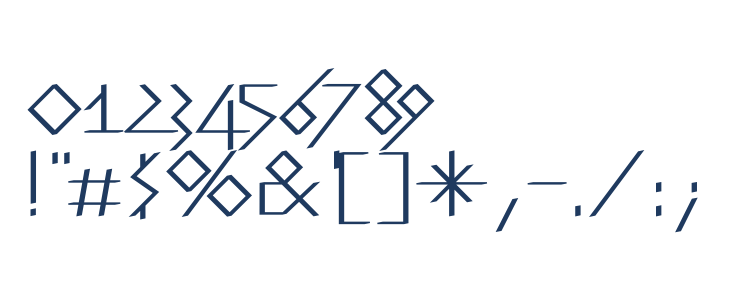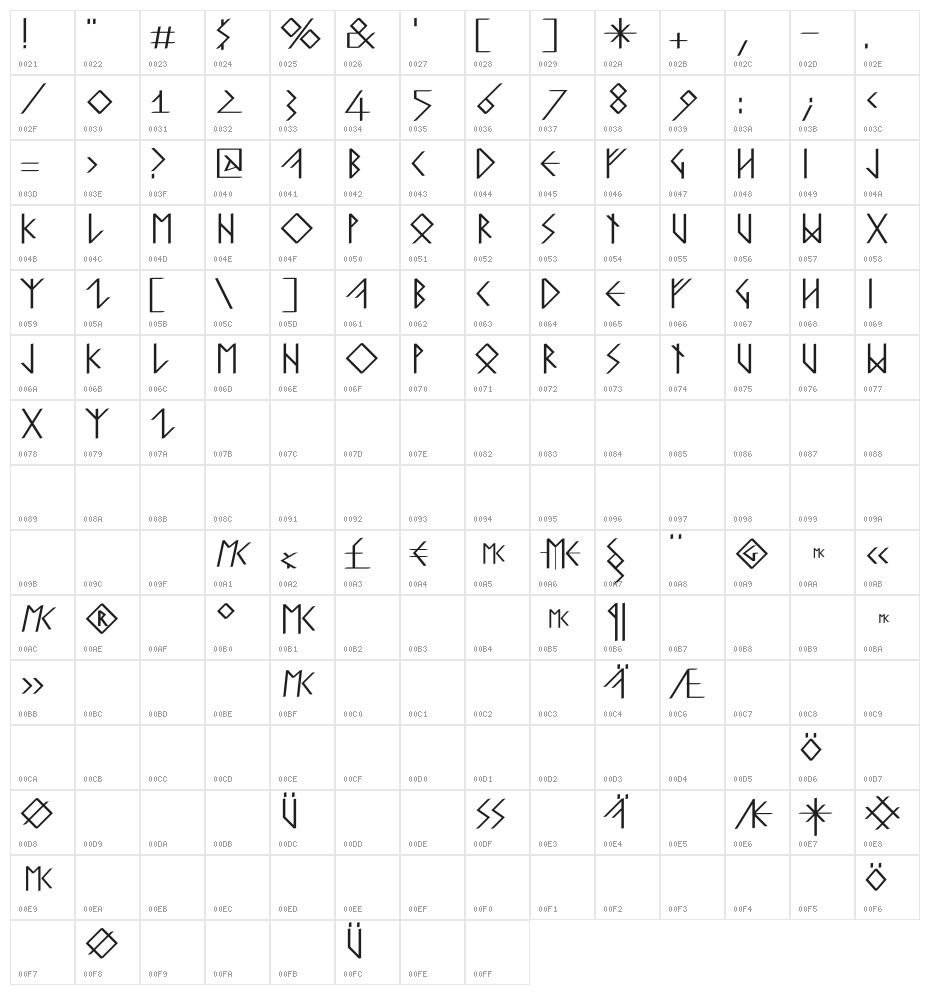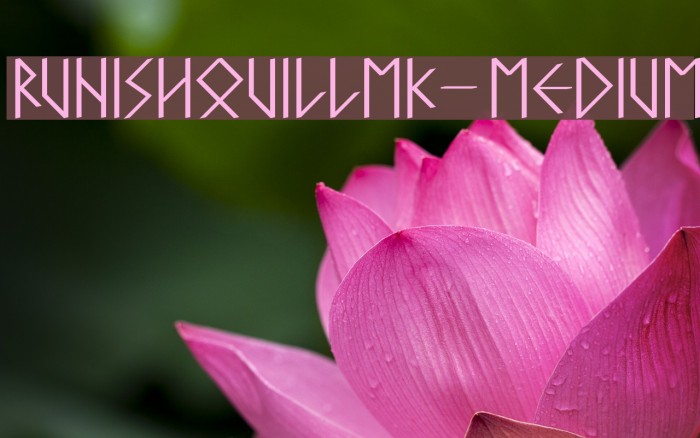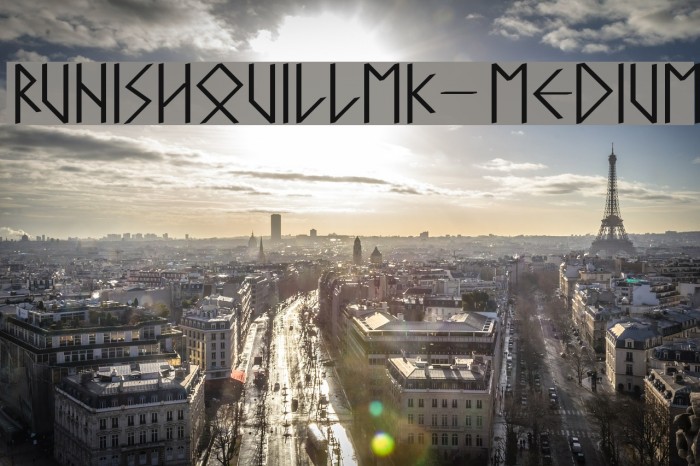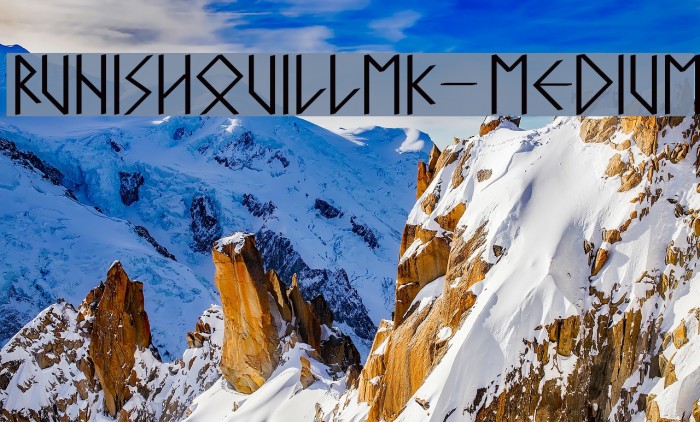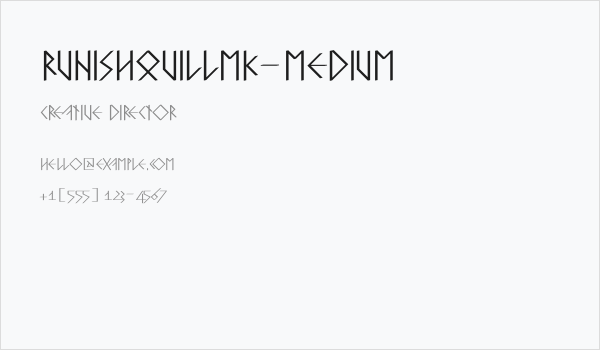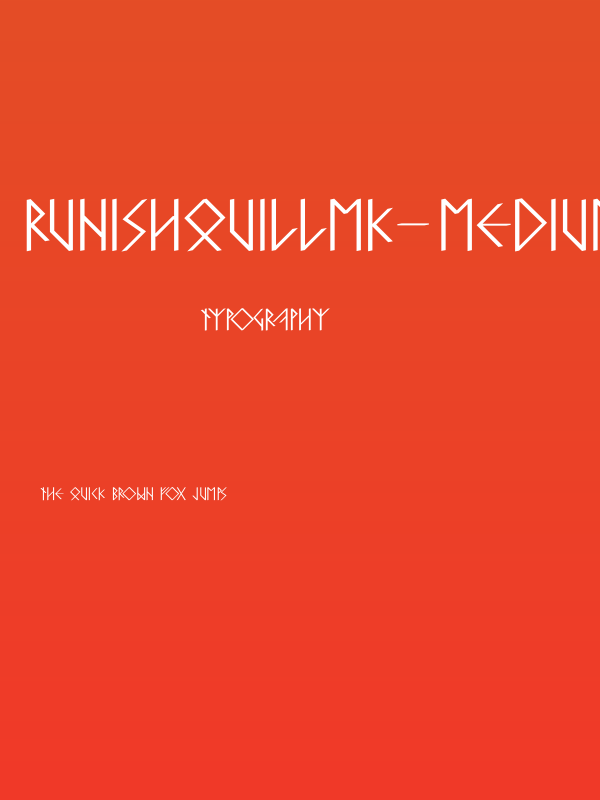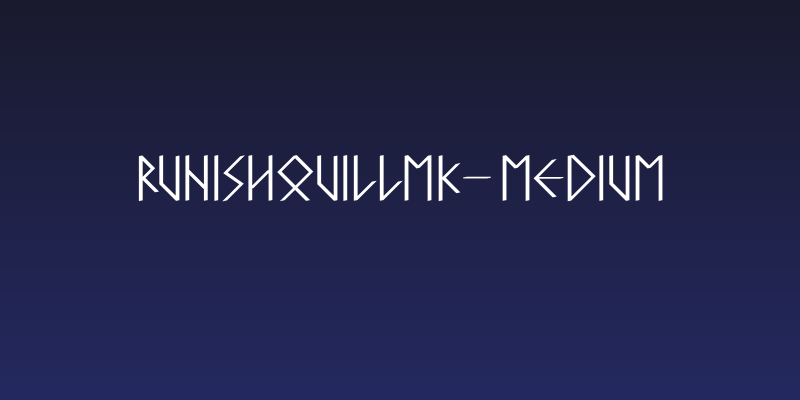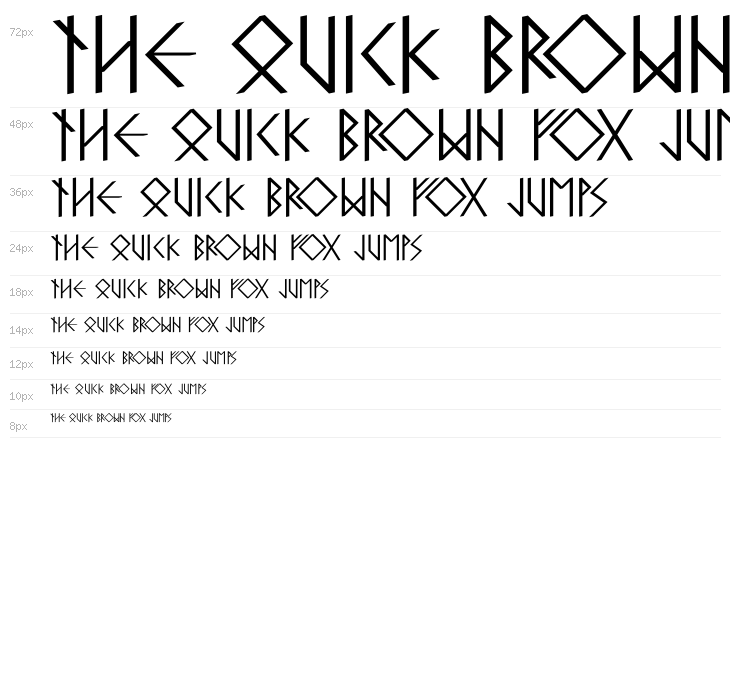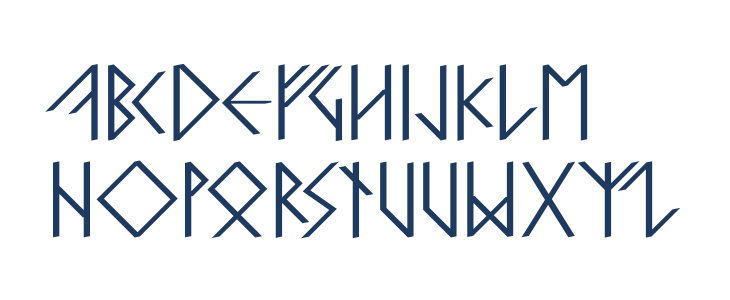
RunishQuillMK-Medium Font
RunishQuillMK-Medium Description
This font features a unique, angular design reminiscent of ancient runic scripts. The characters are composed of sharp, straight lines and geometric shapes, creating a striking and bold appearance. The uppercase and lowercase letters maintain a consistent style, with a focus on symmetry and balance. The numbers and special characters follow the same angular motif, ensuring a cohesive look across all elements. This font's distinct style makes it ideal for projects that require a touch of historical or mystical flair.
| Proposed Projects | Ideal for fantasy-themed designs, historical projects, game titles, or branding that requires a mystical or ancient touch. |